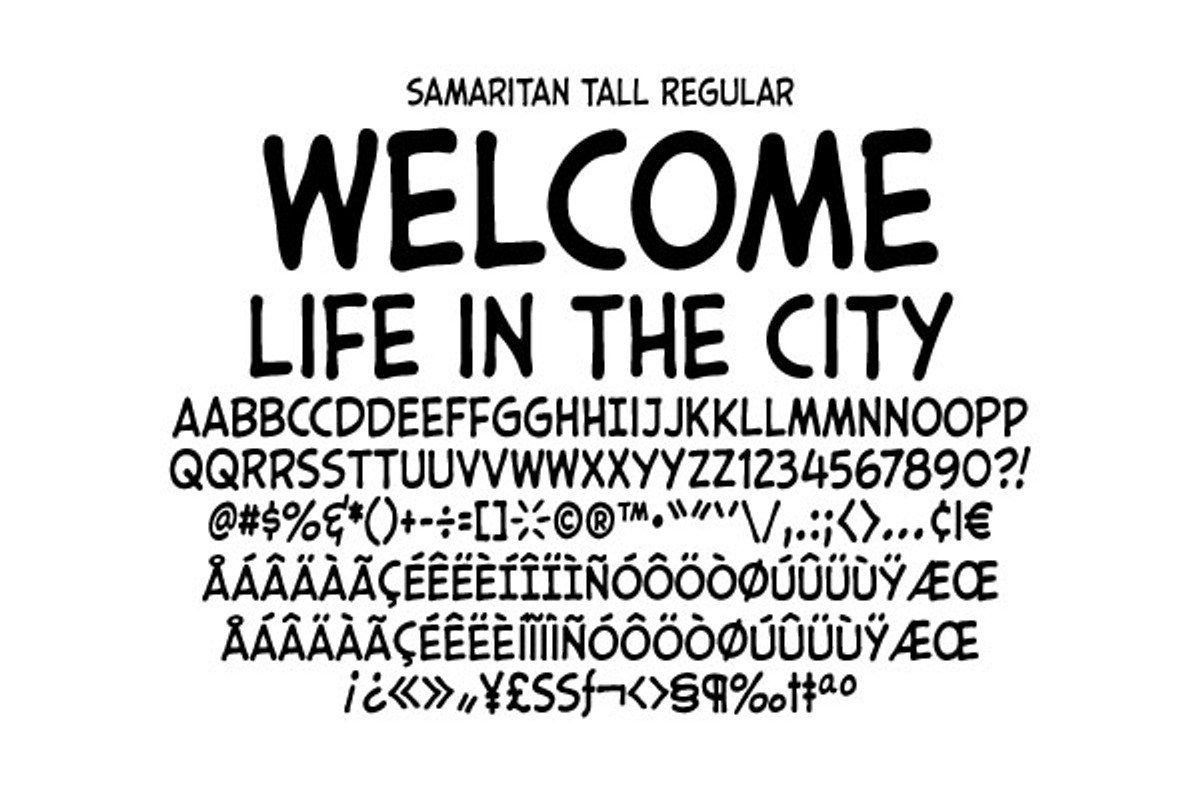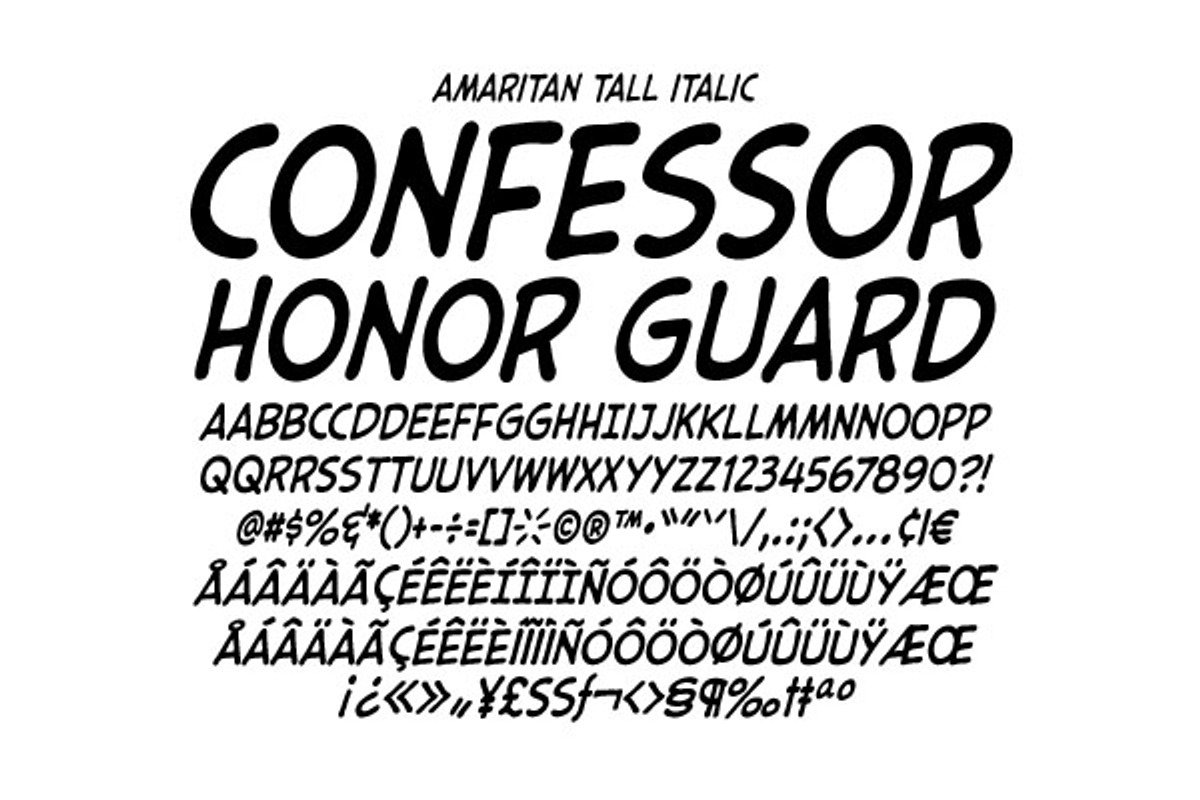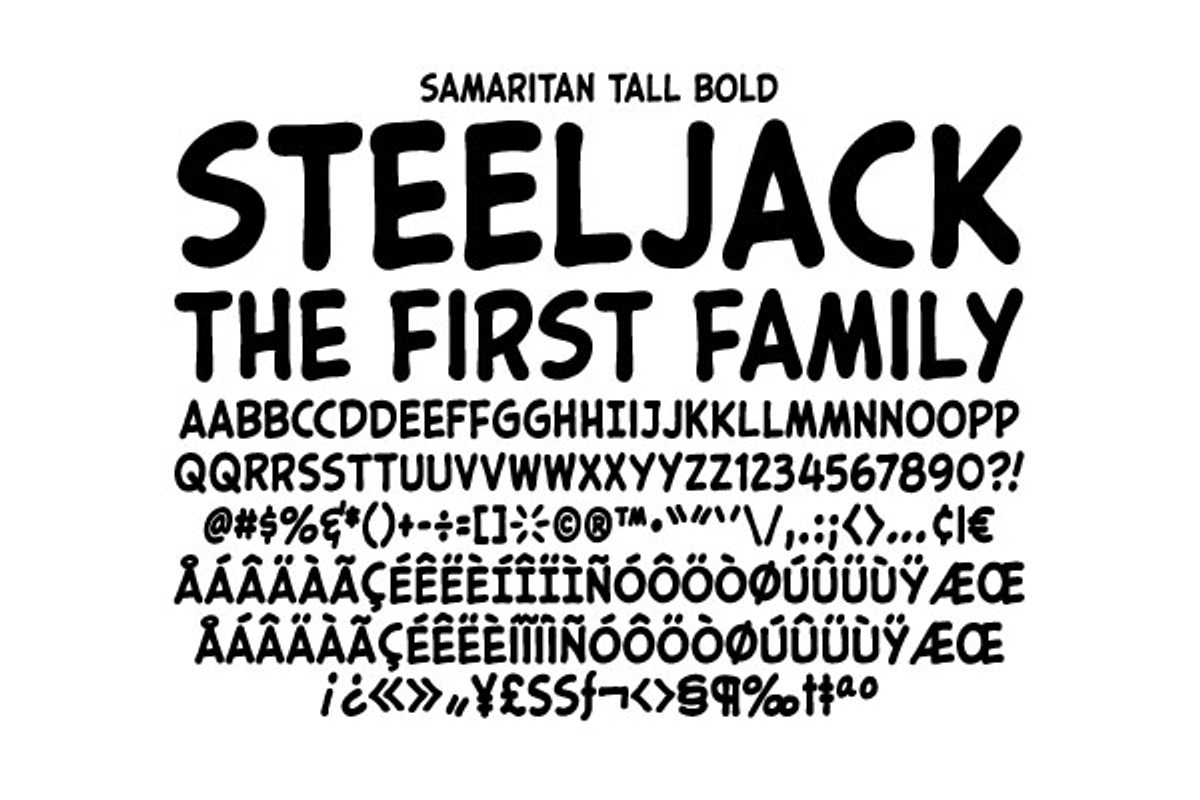
Samaritan Tall
Samaritan Tall by Comicraft Fonts is a font selected for branding, posters, packaging, typography.
Why Samaritan Tall is worth a look
Samaritan Tall by Comicraft Fonts fits naturally into Branding, posters, packaging, typography.